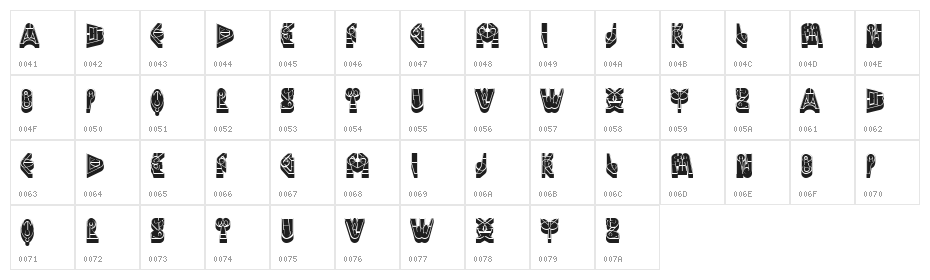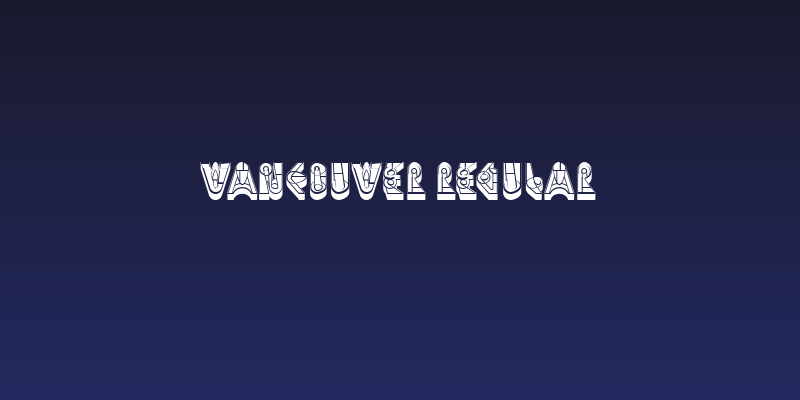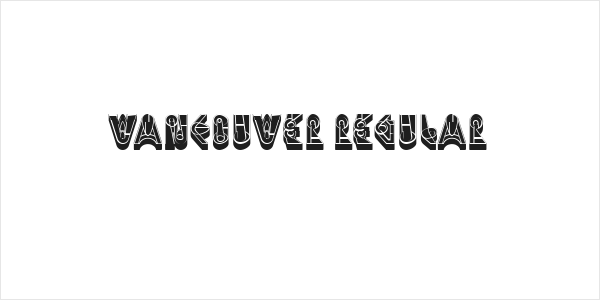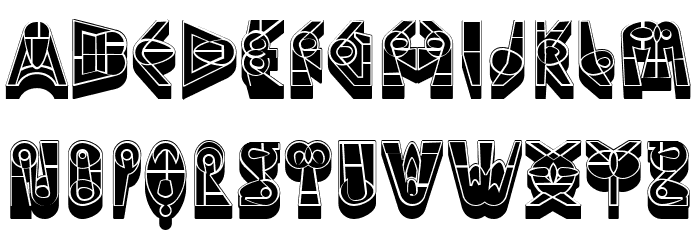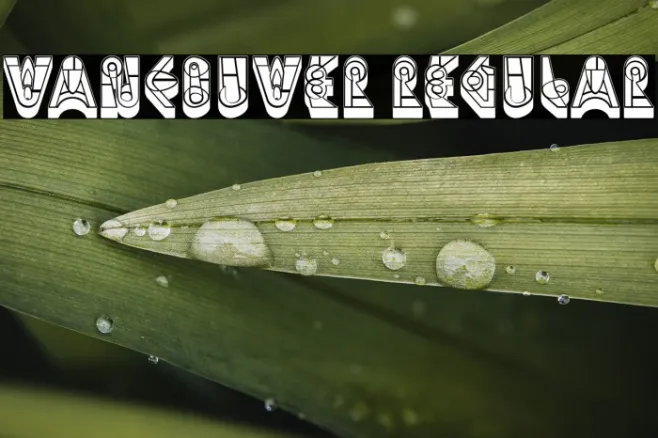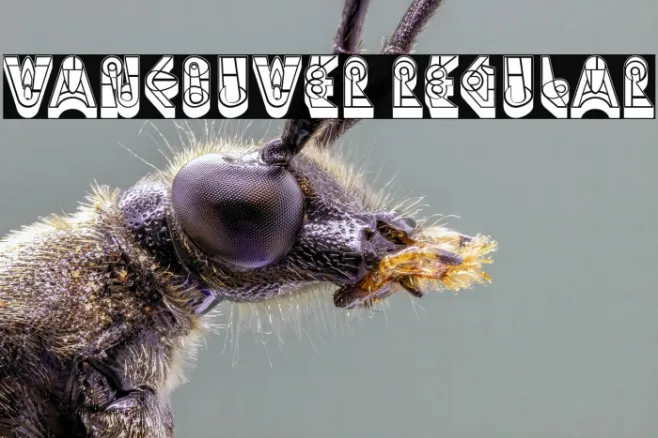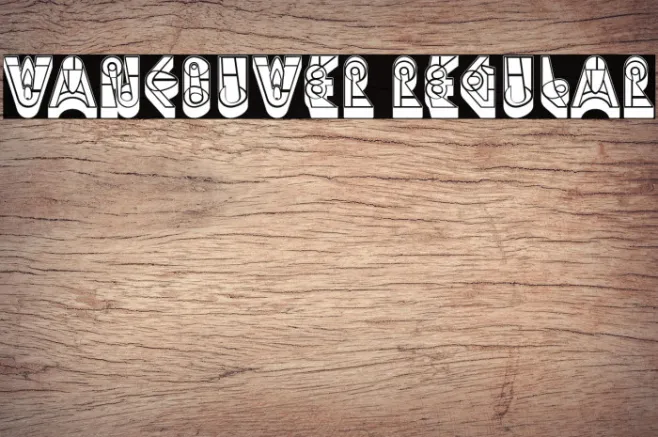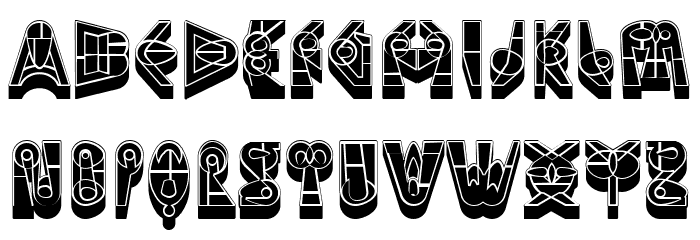
Vancouver Regular Font
Vancouver Regular Description
This font is a bold and striking display typeface characterized by its geometric and abstract shapes. Each letter is crafted with a unique combination of lines and curves, creating a sense of depth and dimension. The design incorporates elements of symmetry and asymmetry, making it visually intriguing and suitable for artistic and creative projects. The uppercase letters are particularly distinctive, with intricate patterns that draw the eye. This font is ideal for making a statement in headlines or logos, where attention-grabbing typography is essential.
| Proposed Projects | Ideal for use in branding, poster design, album covers, and any project requiring a bold, artistic touch. |